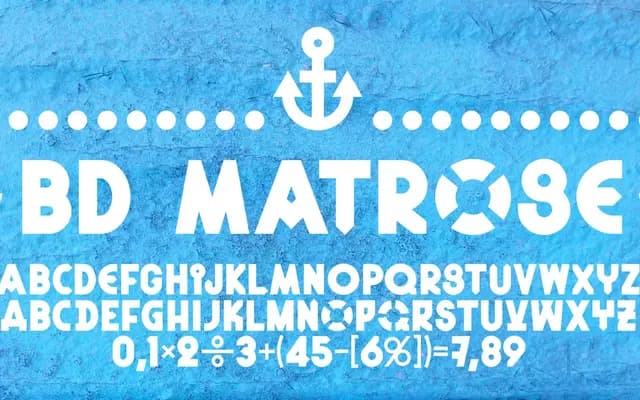
BD Matrose
Type Different · 2017
An uppercase display alphabet from 2017 with a nautical theme, suited to marine-themed titles and headings.
A single-weight uppercase display face built around a nautical aesthetic, with OpenType ligatures including combinations for ff, fi, tt and their capitalised variants. Coverage spans Basic Latin, Latin-1 Supplement and Latin Extended-A, making it serviceable across Western European languages. Best suited to short titling work where a period maritime character is the point.
An uppercase-only display alphabet with a nautical aesthetic, designed for titling use only; the ornamental character and thematic styling place it firmly in the decorative display category.